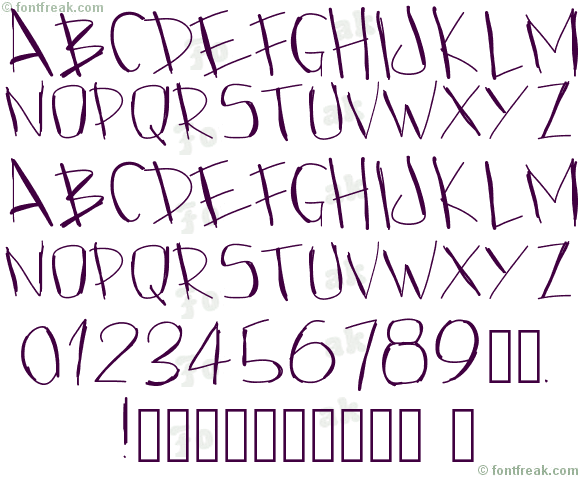
PWJazzy
The PWJazzy font by Peax Webdesign is a delightful display typeface characterized by its playful and whimsical design. This font falls into the decorative category, showcasing a unique blend of curvy strokes and lively character forms. The stroke weight varies, adding a sense of dynamism and visual interest, while the spacing between letters is carefully designed to maintain readability without sacrificing style. PWJazzy features charming decorative elements that give it a hand-drawn feel, making it perfect for projects that require a touch of creativity and flair.
The PWJazzy font is an excellent choice for a variety of specific use cases. It shines in wedding invitations, where its elegant yet fun aesthetic can convey joy and celebration. Additionally, this font is ideal for restaurant menus, allowing businesses to showcase their culinary offerings in a way that feels inviting and contemporary. Movie posters can also benefit from PWJazzy’s distinctive style, drawing attention and captivating audiences. Furthermore, it's well-suited for social media graphics, where content creators can use it to enhance engagement with eye-catching visuals.
What sets the PWJazzy font apart is its ability to combine artistic expression with functionality. It brings a lively spirit to any design, making it a versatile choice for a wide range of applications. For anyone looking to add a touch of whimsy to their work, the PWJazzy font free download is a fantastic option that will not disappoint.